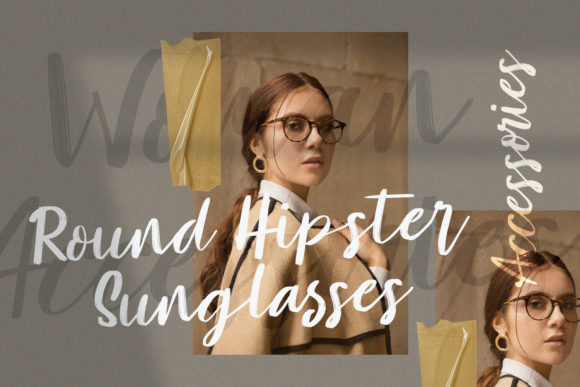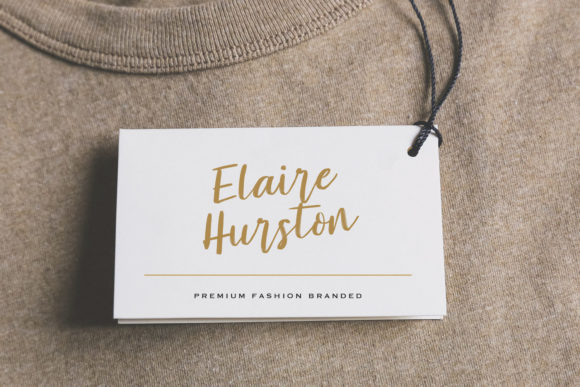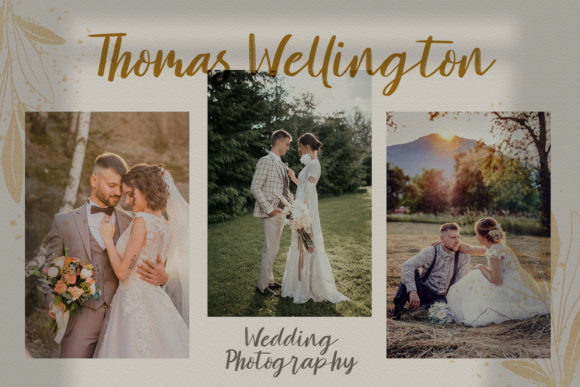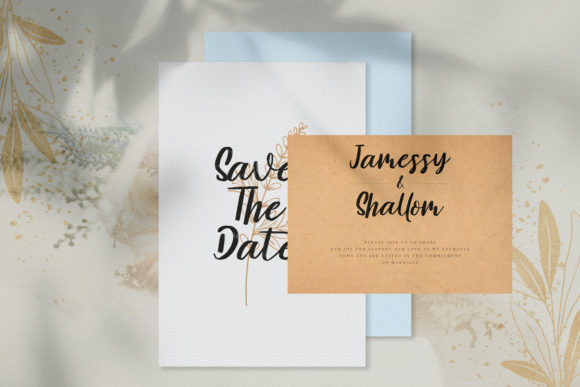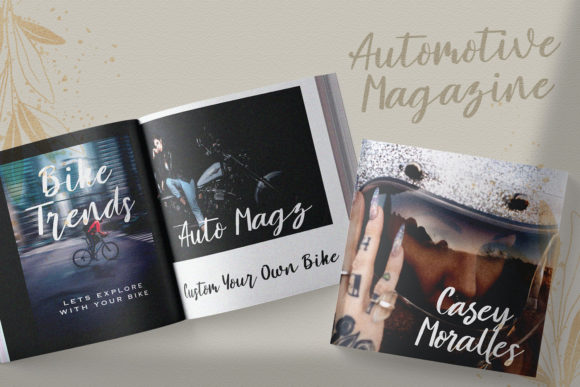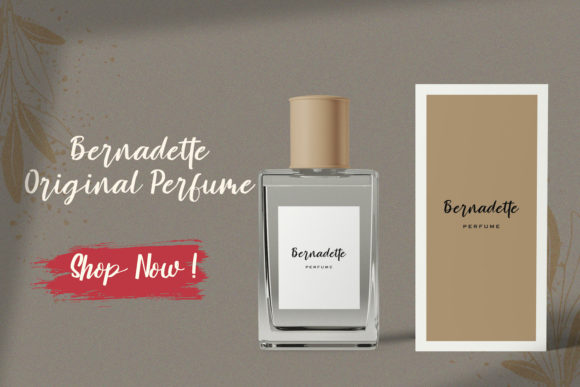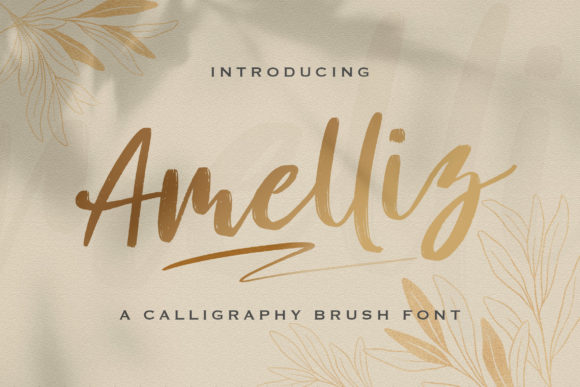
The Amelliz Font: A Designer’s Dream Come True
I’ll never forget the moment I stumbled upon the Amelliz font. I was working on a wedding invitation project for a client, and I was struggling to find the perfect handwritten font that exuded elegance and sophistication. The client had a clear vision of what she wanted – a beautiful, brush-penned script that would make her special day even more memorable. That’s when I discovered Amelliz, and I was immediately smitten.
Amelliz is an exquisite handwritten font, created with the help of an elegant brush pen. Its incredibly versatile style makes it perfect for a wide range of design projects, from gorgeous wedding invitations and beautiful stationery art to eye-catching social media posts and more. In this article, I’ll share my experience with Amelliz, including what I love about it, some quirks to watch out for, and practical tips on how to use it on different platforms.
An Honest Review: What I Love About Amelliz
Here’s what I’m obsessed with about Amelliz:
- ✨ Elegant and sophisticated: Amelliz has a refined, high-end feel that’s perfect for luxury brands and special occasions.
- ✅ Versatile: This font works beautifully in a variety of contexts, from digital to print, and from formal to informal.
- 💫 Highly legible: Despite its elegant nature, Amelliz is surprisingly easy to read, even at smaller font sizes.
- 🎨 Beautifully crafted: The attention to detail in Amelliz is impressive, with subtle variations in line width and fluid connections between letters.
And here are some small quirks to keep in mind:
- 🤔 Limited character set: While Amelliz has a wide range of characters, it may not have every special character or glyph you need.
- ⚠️ May require manual kerning: Depending on the context, you may need to adjust the kerning between letters to achieve optimal results.
The Story Behind Amelliz: Designer Inspiration
Amelliz was created by a talented font designer who drew inspiration from the elegant, flowing lines of traditional brush calligraphy. With a passion for beautiful typography and a keen eye for detail, the designer crafted Amelliz to be a versatile, sophisticated font that’s perfect for a wide range of design projects. Whether you’re a professional designer or a creative hobbyist, Amelliz is sure to become a favorite in your font collection.
| What type of projects is Amelliz best suited for? | Amelliz is perfect for a wide range of design projects, including wedding invitations, stationery art, social media posts, and more. |
| Is Amelliz easy to read? | Yes, despite its elegant nature, Amelliz is surprisingly easy to read, even at smaller font sizes. |
| Does Amelliz support OpenType features? | Yes, Amelliz supports a range of OpenType features, including ligatures, stylistic alternates, and glyphs. |